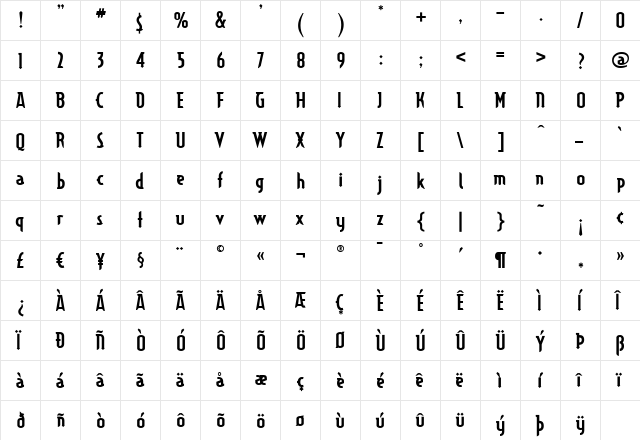
Typographiction20B Medium
Design Context for Typographiction20B Typeface
Typographiction20B offers clean, dependable letterforms without strong stylistic allegiance, making it a practical choice for designers who need flexibility.